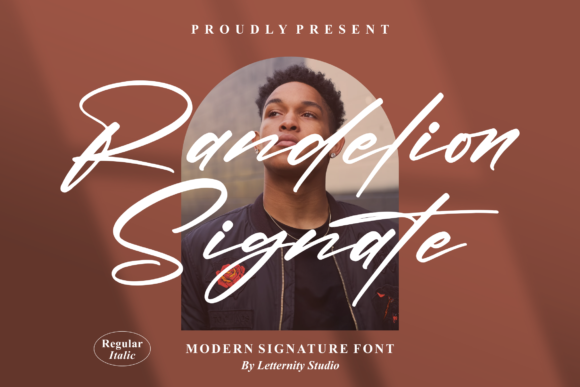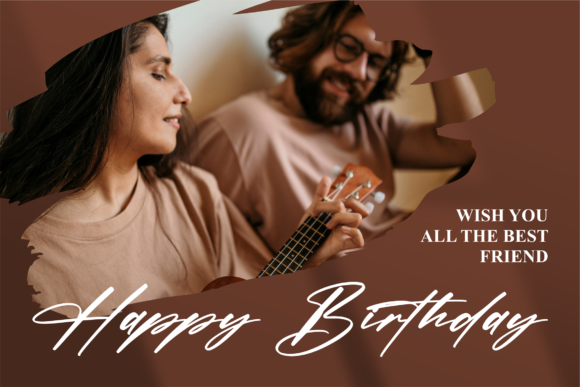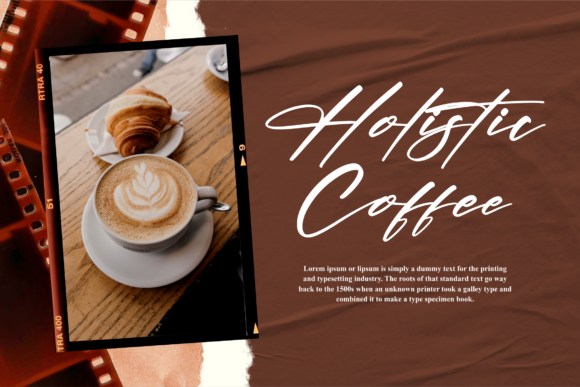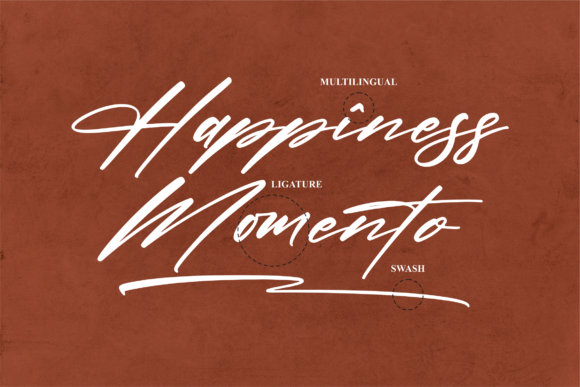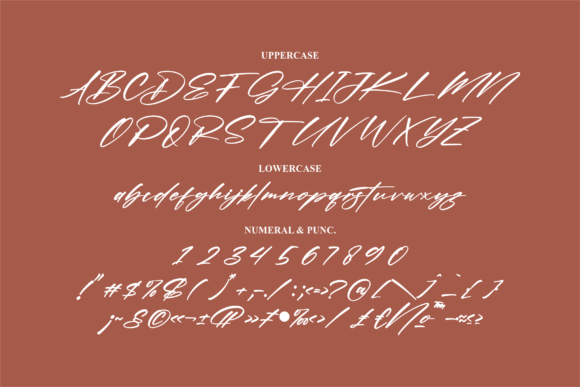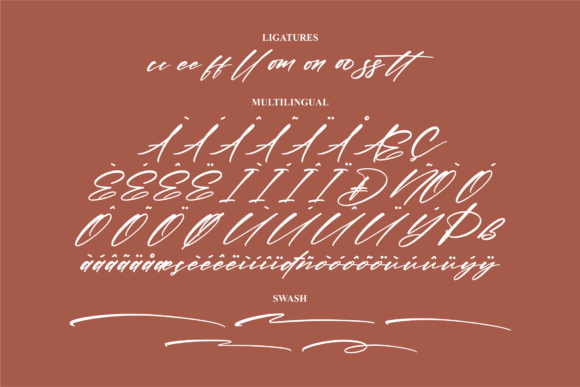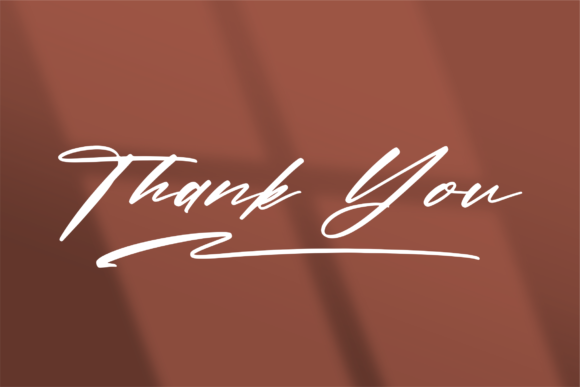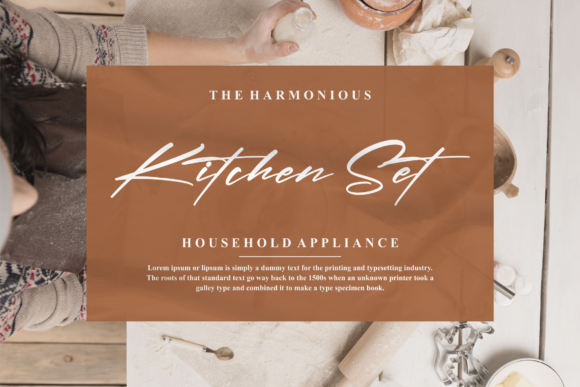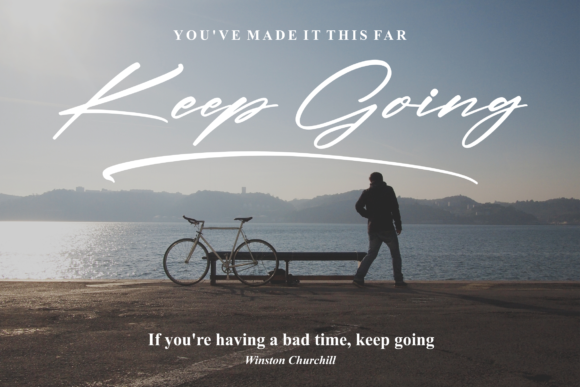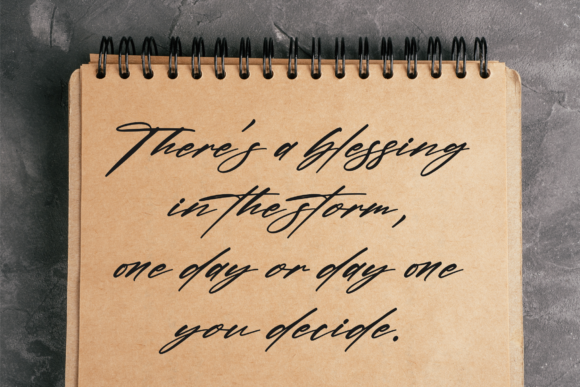
Randelion Signate Font
About Randelion Signate Font
Randelion Signate is an elegant script font with a contemporary atmosphere and impeccable form, inspired by timeless classic calligraphy. Not too thin and not too thick, balanced and varied, this font was designed to enhance the beauty of your projects.